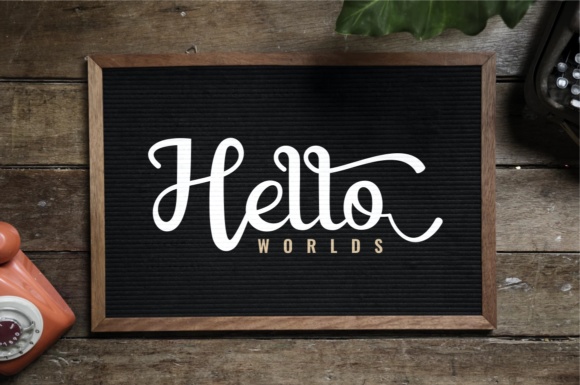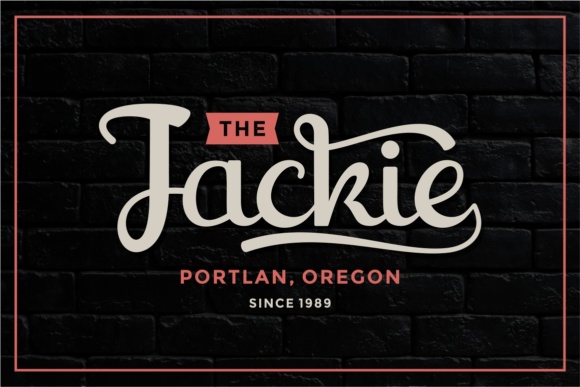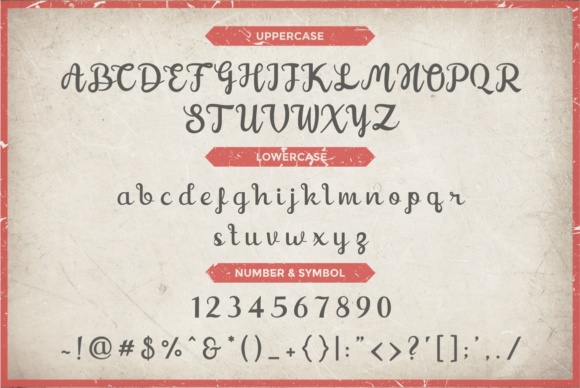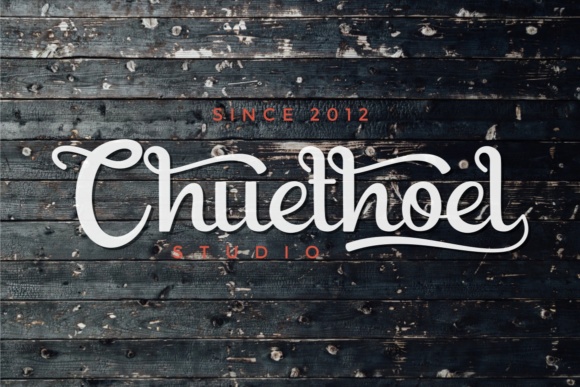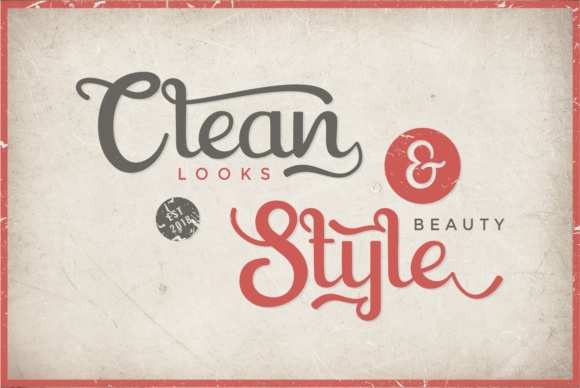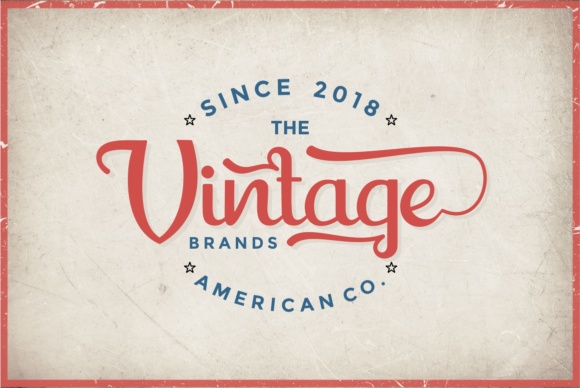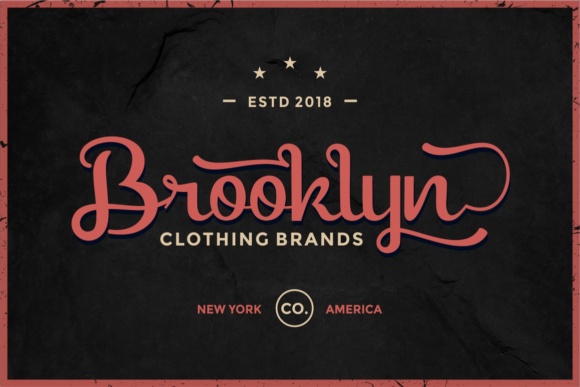
Shaquilla Font
About Shaquilla Font
Shaquilla is a modern, classic font. It’s ideal for logos, handwritten quotes, product packaging, headers, posters, merchandise and every other design that needs a striking, yet elegant look.